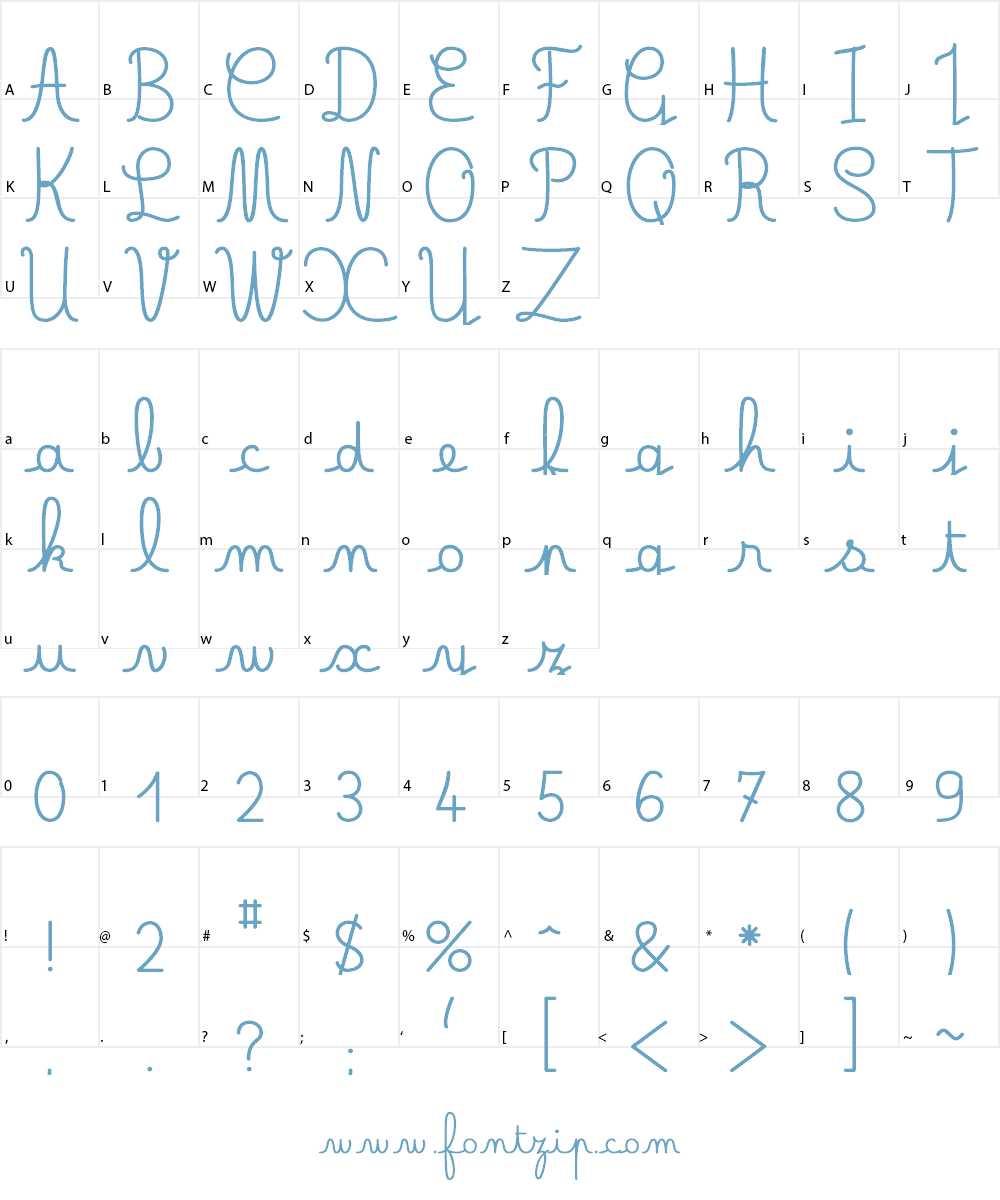
Belle Allure is a font for schools. It is based on the continuity of movement and simple paths which let a fast and easy cursive writing. It respects the French habits and leans on a wide character set and on the OpenType properties.